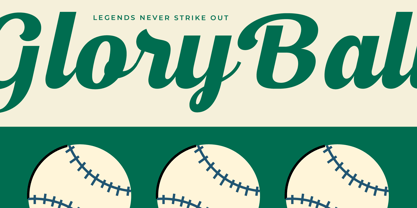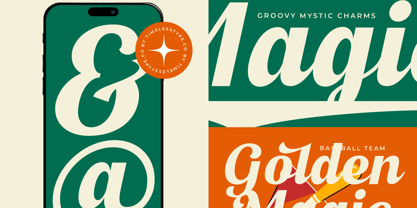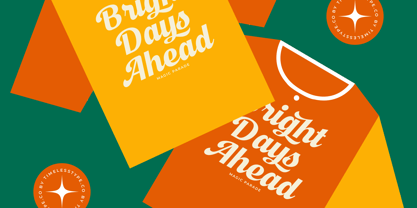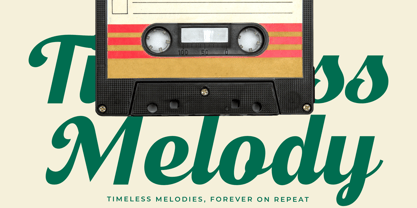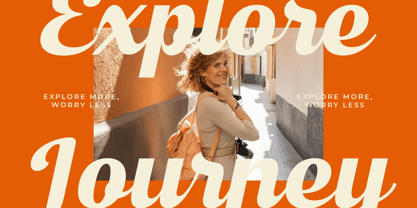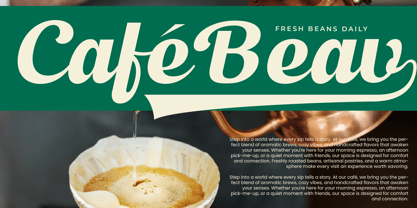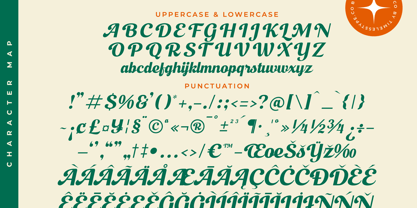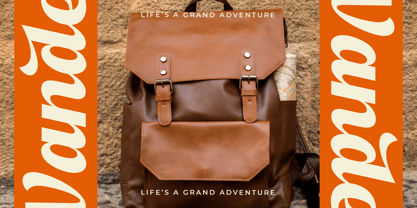
Magic Parade
by Timelesstype Studio
The Magic Parade Font Family was designed by Heru Utama Putra and published by Timelesstype Studio. Magic Parade contains 2 styles and family package options.
Magic Parade - Modern Bold Script , from Timelesstype, Suitable for any projects such as: logos, branding projects, homeware designs, product packaging, mugs, quotes, posters, shopping bags, t-shirts, book covers, name card, invitation cards, greeting cards, label, photography, watermark, special events, and all your other luxury and beautiful projects that need a Luxury Script taste.